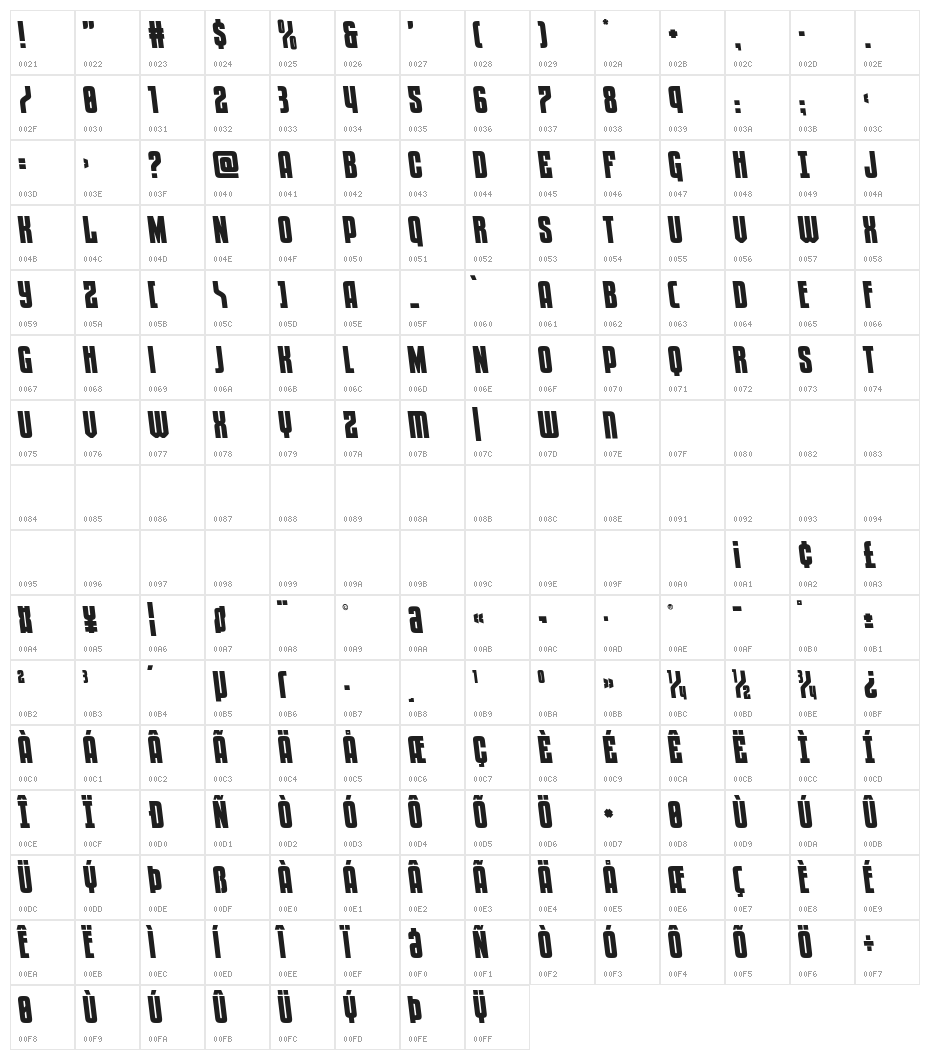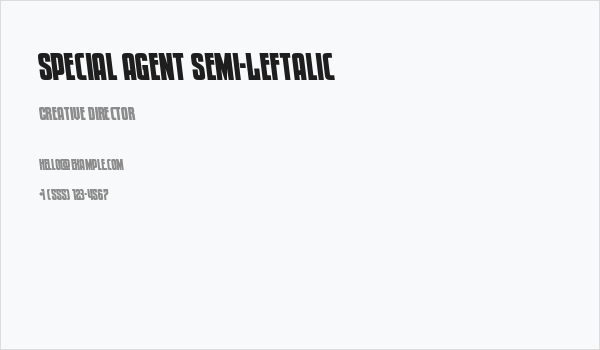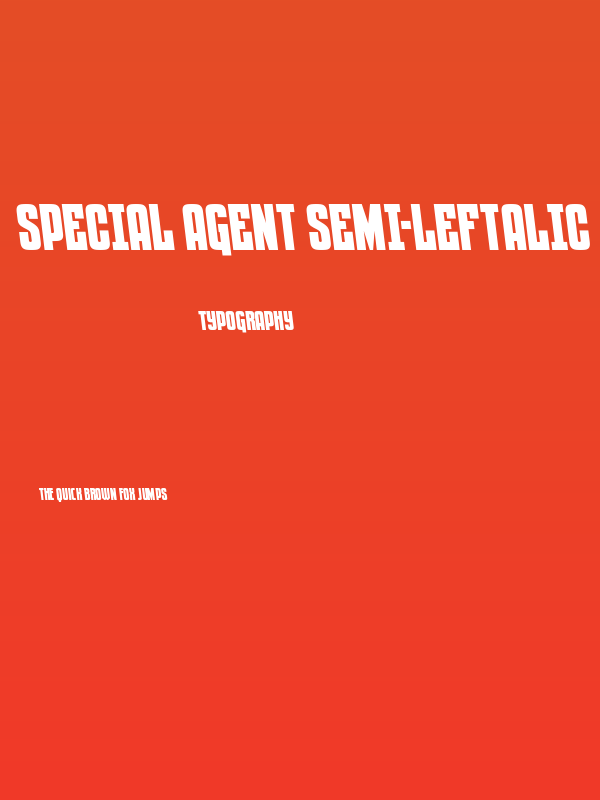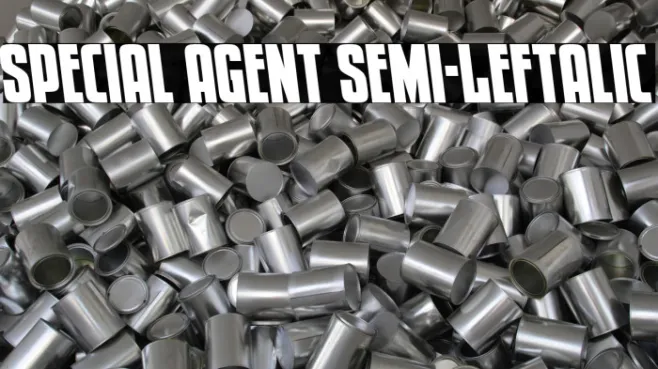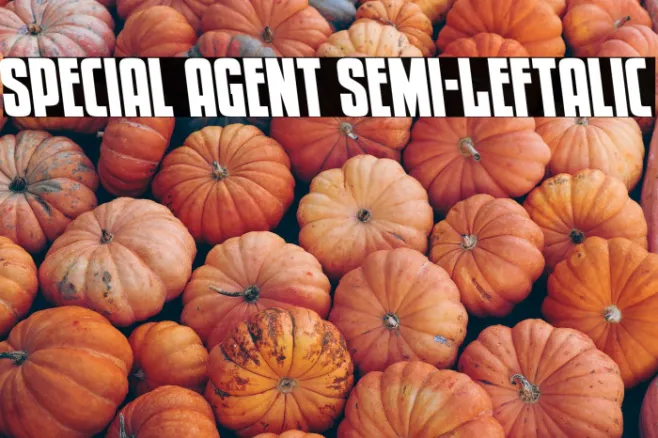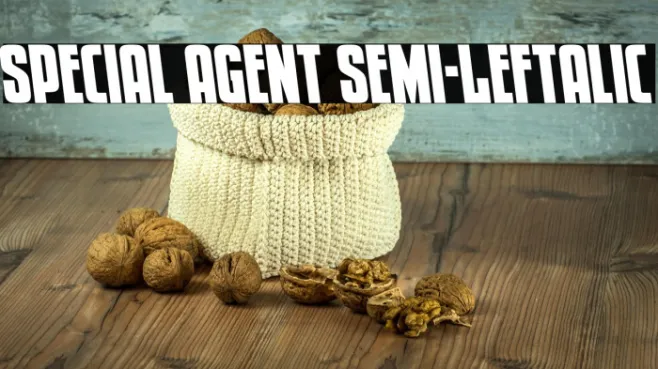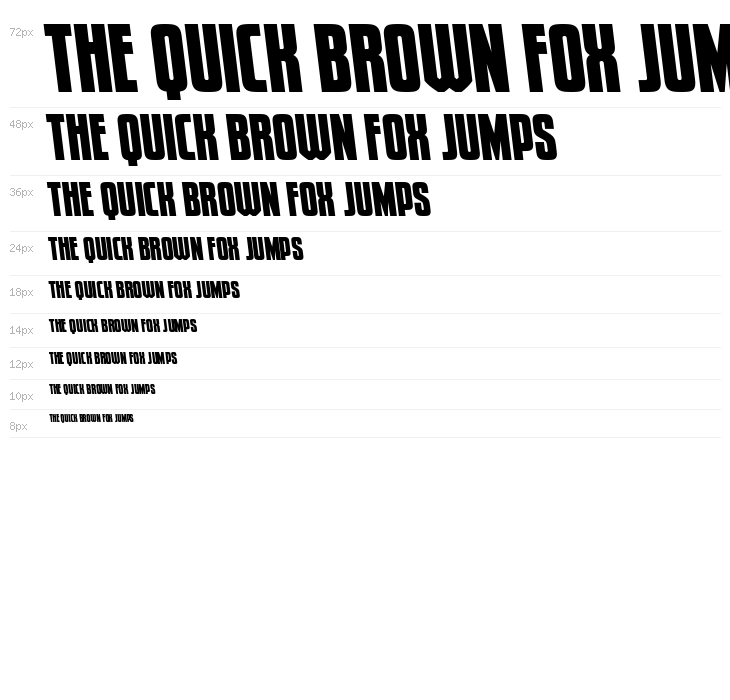
Special Agent Semi-Leftalic Font
Special Agent Semi-Leftalic Description
This font features a bold, impactful design with a strong presence. The characters are slightly slanted to the left, giving it a dynamic and forward-moving appearance. The strokes are thick and consistent, providing a sense of stability and strength. The overall style is modern and assertive, making it suitable for attention-grabbing headlines or branding. The uppercase and lowercase letters maintain a uniform width, contributing to a cohesive look. The numbers and special characters are designed to match the boldness of the letters, ensuring consistency across all elements.